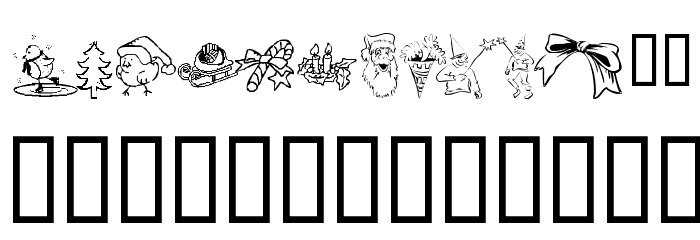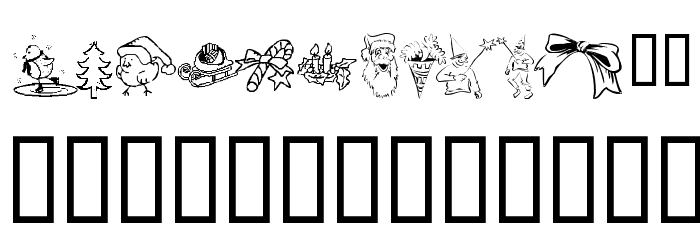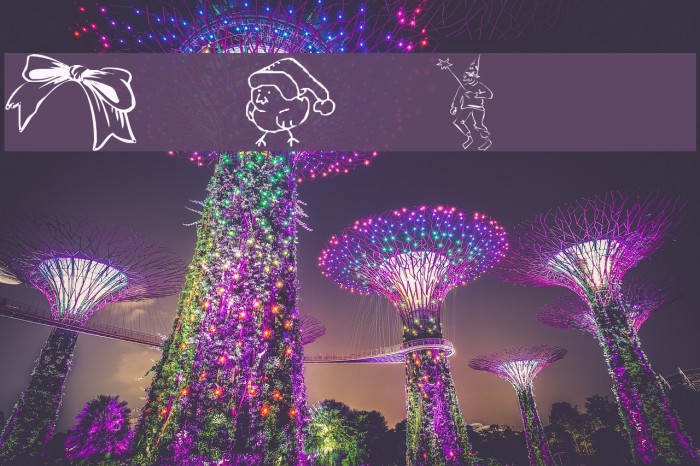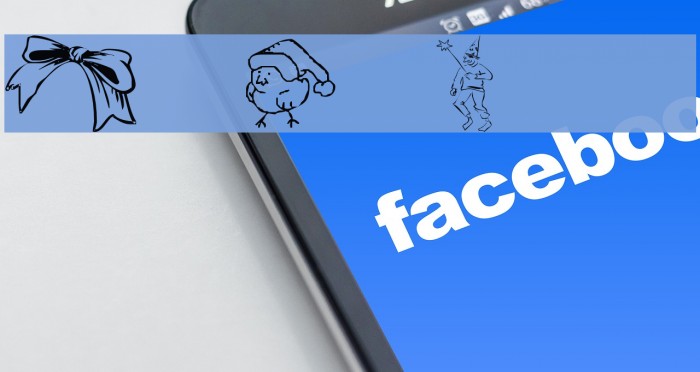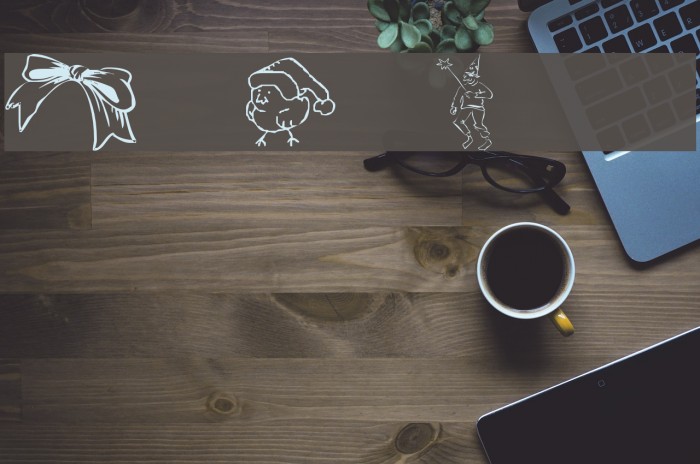
KR Christmas Jewels 2005 3 Font
This decorative font features a series of festive Christmas-themed illustrations replacing traditional alphanumeric characters. Each character is represented by a unique holiday image, such as Santa Claus, Christmas trees, candy canes, and other seasonal motifs. The style is playful and whimsical, capturing the essence of holiday cheer. The illustrations are detailed and intricate, making them suitable for decorative purposes. The font is designed to evoke a sense of nostalgia and joy, perfect for holiday-themed projects.
A decorative font with festive Christmas-themed illustrations replacing characters.
- Proposed Projects: Ideal for holiday greeting cards, festive invitations, Christmas decorations, and seasonal marketing materials.
- Use Case: Logos, Headlines, Decorative elements